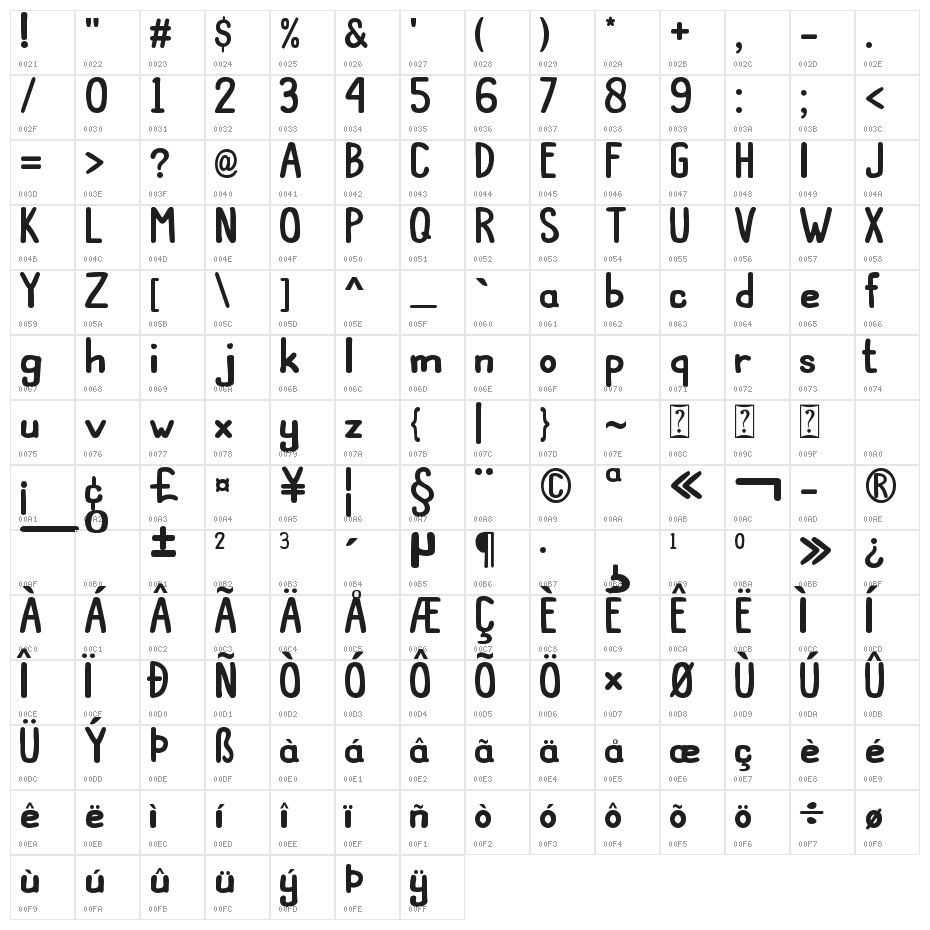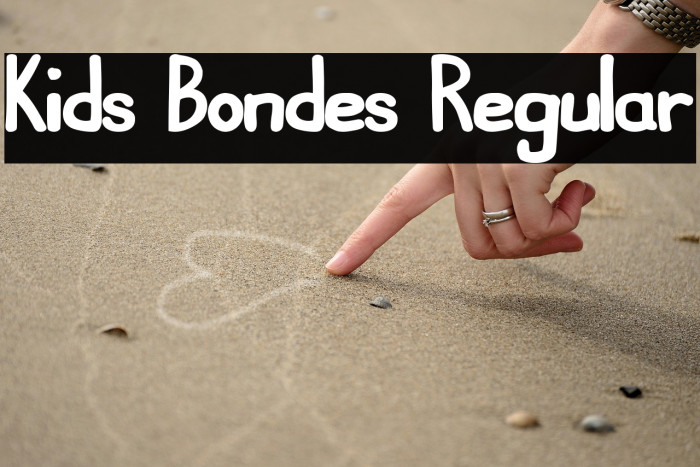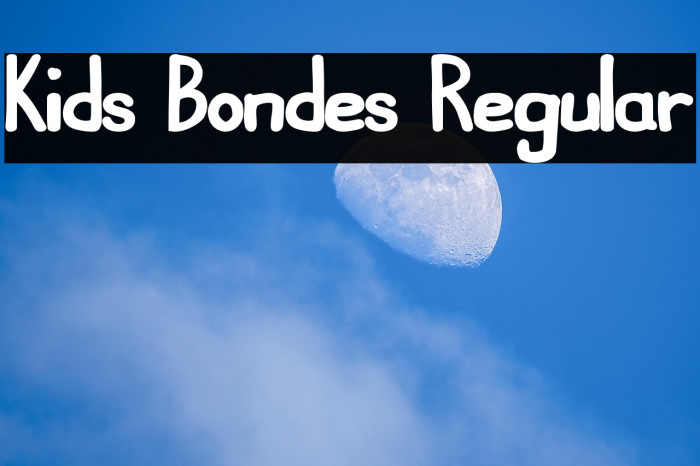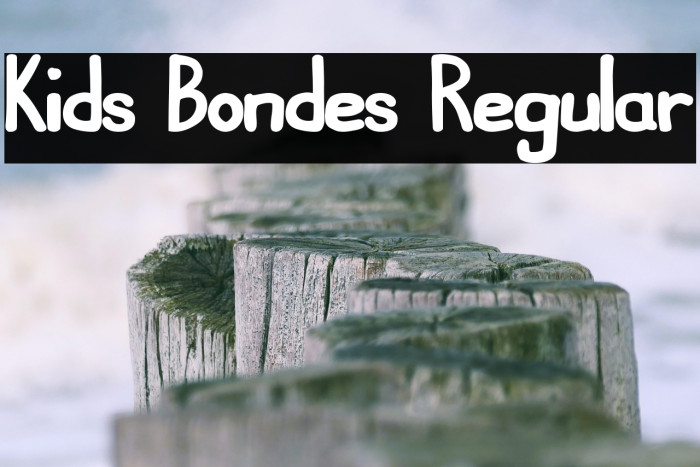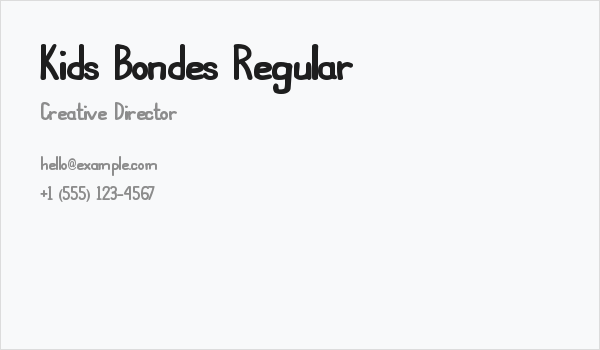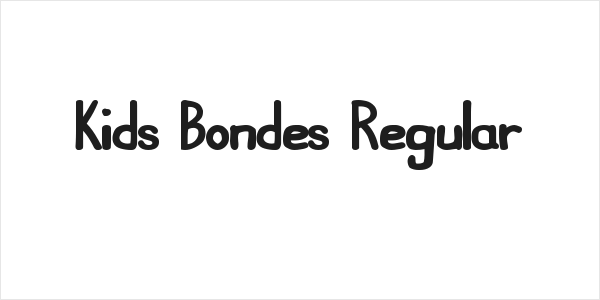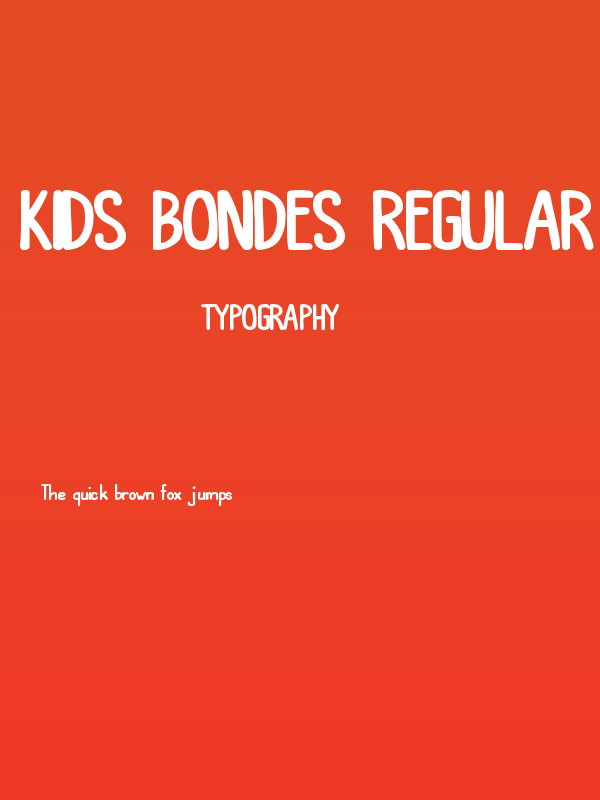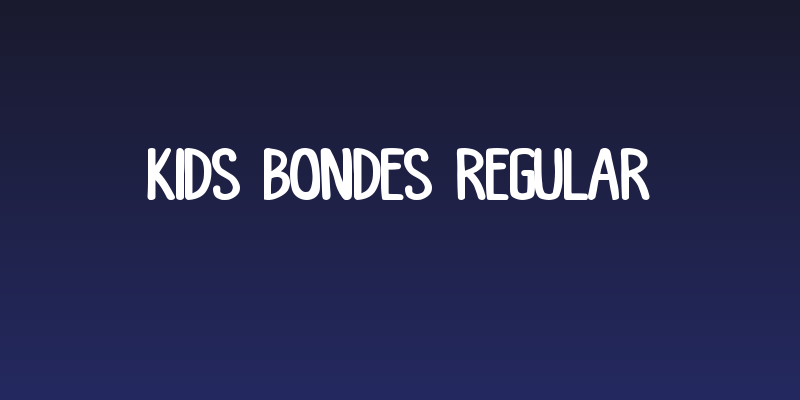
Kids Bondes Regular Font
Kids Bondes Regular Description
This playful and rounded font exudes a youthful and energetic vibe, perfect for capturing the attention of a younger audience. The characters are bold and slightly irregular, giving a hand-drawn appearance that adds to its charm. The uppercase and lowercase letters maintain a consistent style, with smooth curves and a friendly demeanor. Numbers and special characters are equally engaging, making this font versatile for various creative projects. Its informal style is ideal for children's books, educational materials, and playful branding.
| Proposed Projects | Ideal for children's books, educational materials, playful branding, and creative posters. |